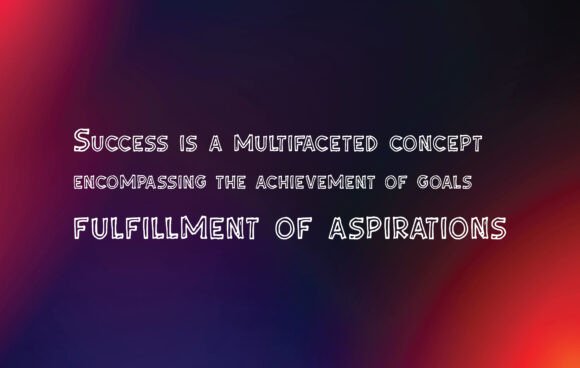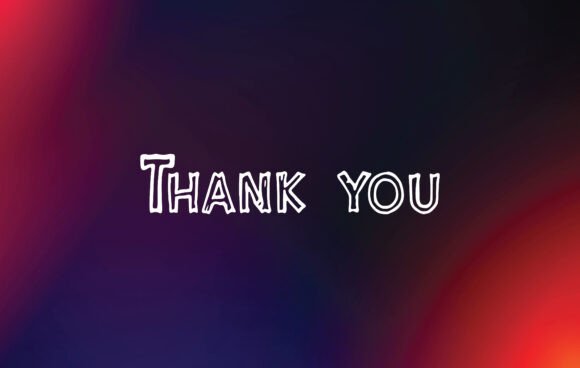
Introduction to Morris Font
Morris is a lovely and beautiful handwritten font.
Key Features of Morris Font
Why Choose Morris Font?
Morris Font offers exceptional quality and versatility, making it a valuable addition to your design toolkit. Whether you’re creating for personal projects or commercial use, Morris Font delivers professional results.